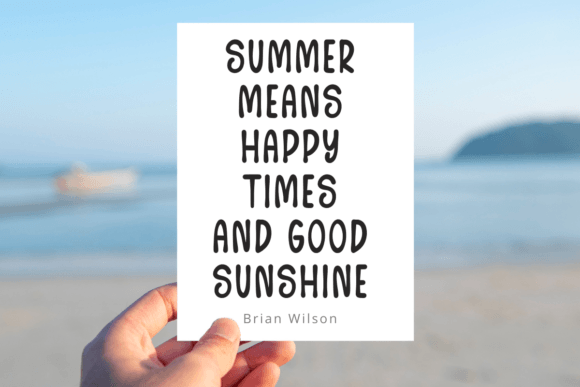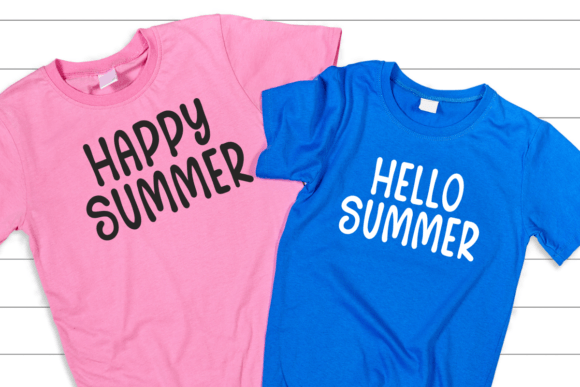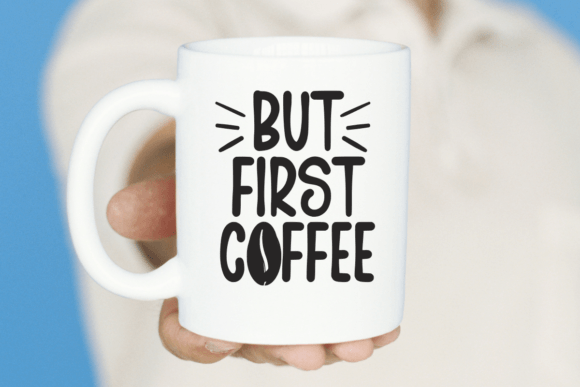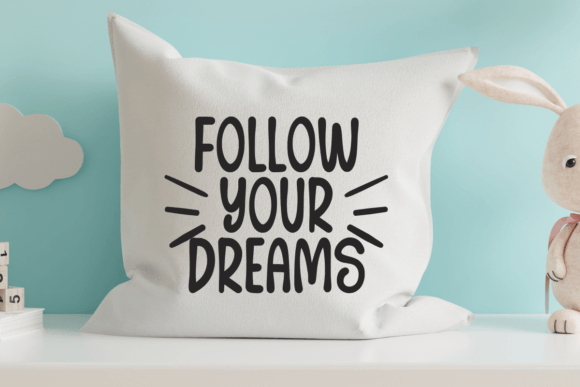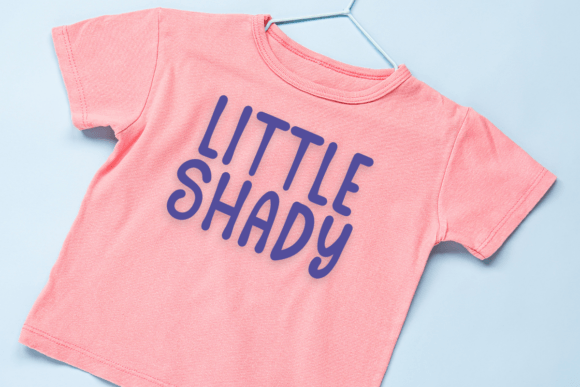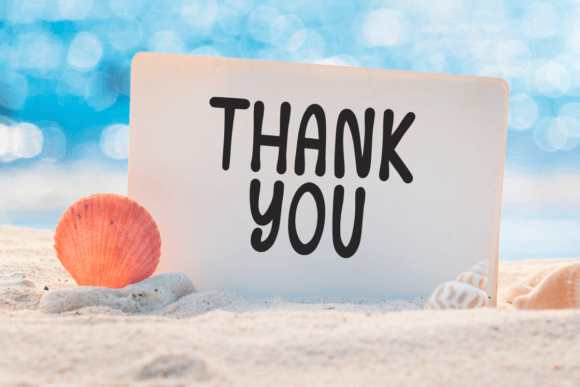
Introduction to Slims Shadys Font Font
Fonts play a crucial role in design, and the Slims Shadys Font font is a typeface that brings both character and versatility to any project. Whether you’re working on a branding project, a website, or a print design, the Slims Shadys Font font offers a unique style that can elevate your work.
Slims Shadys is a cute and happy typeface that captures the spirit of the holiday season.
With its unique character, it adds a touch of charm to your designs Perfect for greeting cards, gift labels, and holiday-themed projects, this font brings a cheerful and nostalgic atmosphere to your words.
Key Features of Slims Shadys Font Font
Why Choose Slims Shadys Font Font?
The Slims Shadys Font font is more than just a typeface – it’s a design tool that helps you communicate your message with style and clarity. Its unique character set and versatile design make it suitable for a wide range of applications, from elegant invitations to bold headlines.
With its carefully crafted letterforms and balanced proportions, the Slims Shadys Font font ensures readability and visual appeal across all mediums.
What makes Slims Shadys Font font special?
The Slims Shadys Font font stands out with its unique design, exceptional readability, and versatility across various design applications.